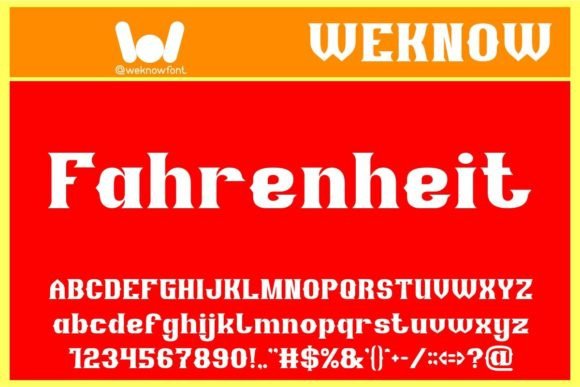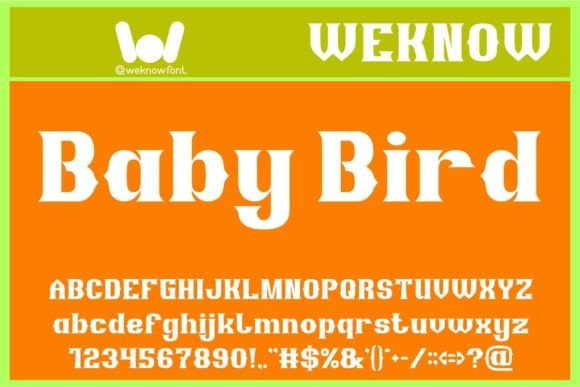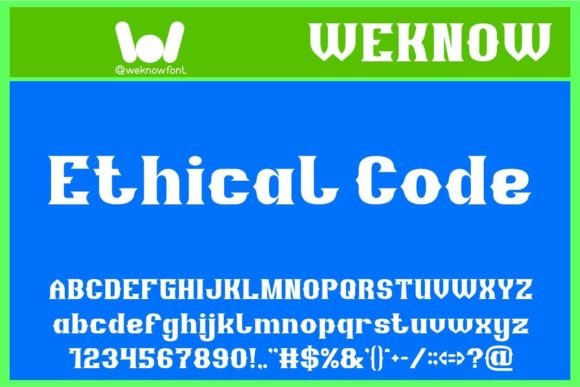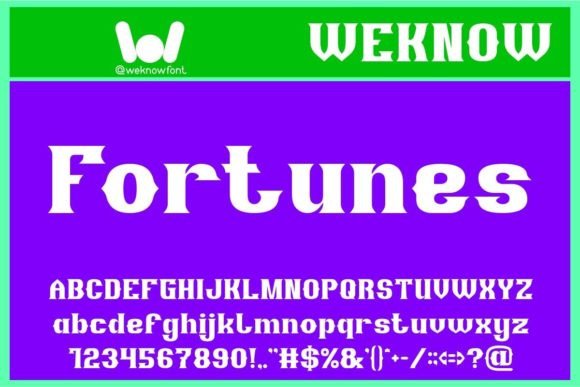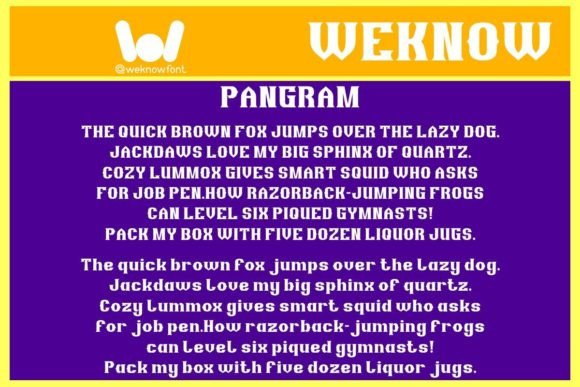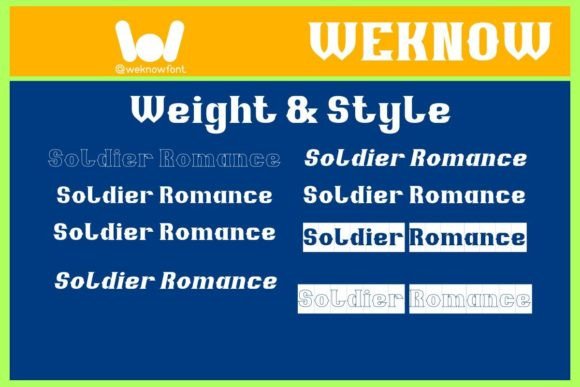
Introduction to Romance Soldier Font
Do you remember that moment when you finally find the perfect font to match your creative vision? It’s like finding a missing piece of a puzzle, and suddenly, your design project comes alive. For designers, this feeling is priceless, and it’s exactly what the Romance Soldier Font aims to deliver.
As a modern Gothic display font, Romance Soldier Font is the perfect addition to any design project, from logos and logotypes to headlines and corporate identities. Its versatility makes it an invaluable resource for designers, allowing them to create high-quality designs that stand out in a crowded market.
- Includes 2 font styles: a bold and a regular version
- Perfect for romantic and vintage-themed designs, with a unique aesthetic
Honest Review: Romance Soldier Font
I recently stumbled upon the Romance Soldier Font, and I must say it’s a lovely addition to any design project. This free download is perfect for those looking to add a touch of elegance and sophistication to their creative project.
What works well: ✨ The Romance Soldier Font offers a high-quality design that’s sure to elevate any design resource. The transparent background allows for seamless integration with any image or background, making it a versatile choice for designers.
The font’s unique blend of vintage and modern elements makes it suitable for a wide range of creative projects, from wedding invitations to advertising materials.
However, I do have to mention a few limitations: ⚠️ The font is not as bold as I’d like, and it may not be suitable for projects that require a more dramatic or attention-grabbing font.
Overall, I’m quite impressed with the Romance Soldier Font. It’s a solid choice for designers looking for a high-quality, elegant font for their creative project.
The Romance Soldier Font is a high-quality, free download design resource ideal for various creative projects. It offers a unique and eye-catching aesthetic that can elevate any design.
The Romance Soldier Font is perfect for:
- Wedding invitations and decorations
- Valentine’s Day cards and gifts
- Romantic social media posts and graphics